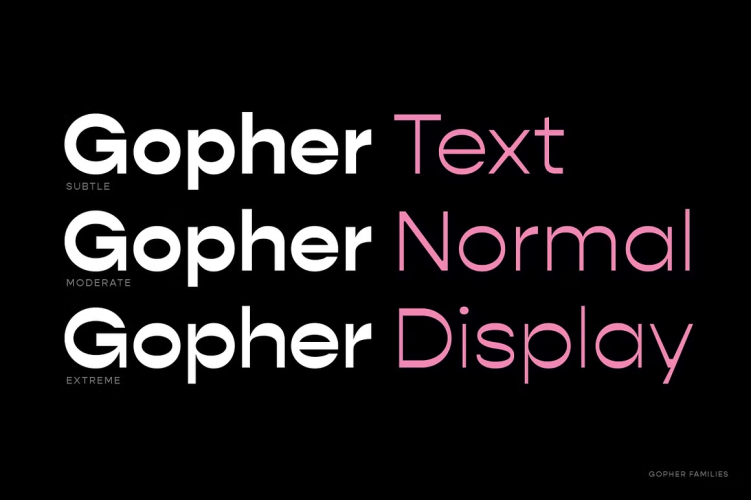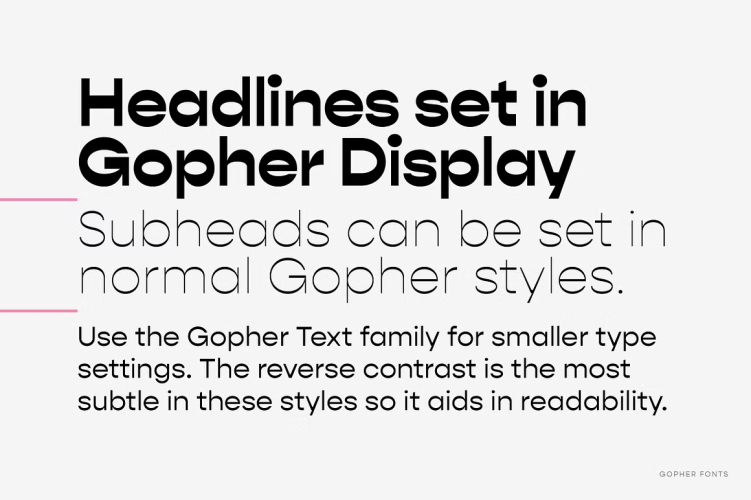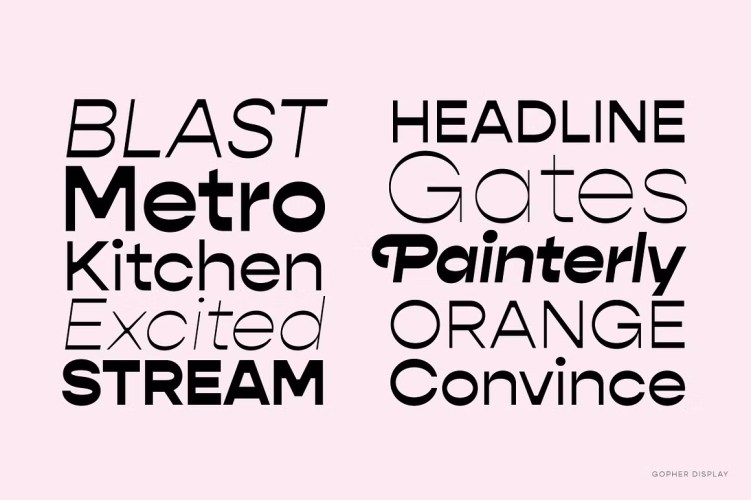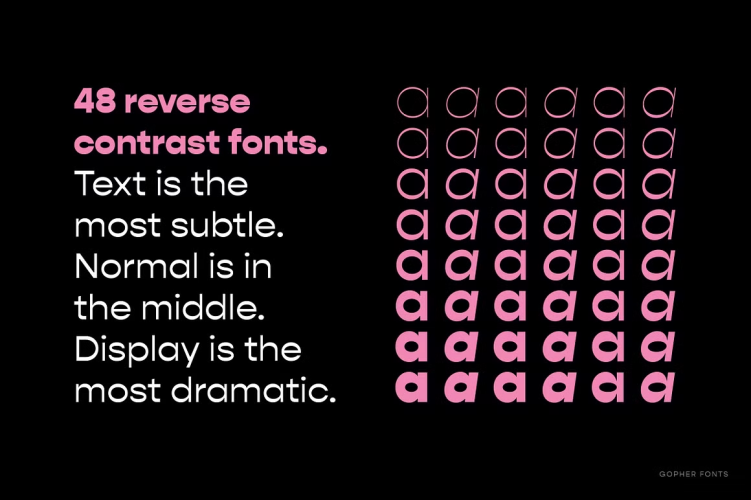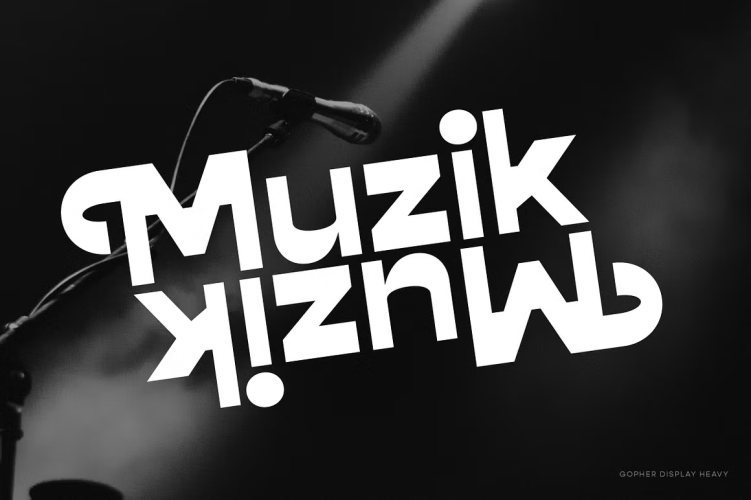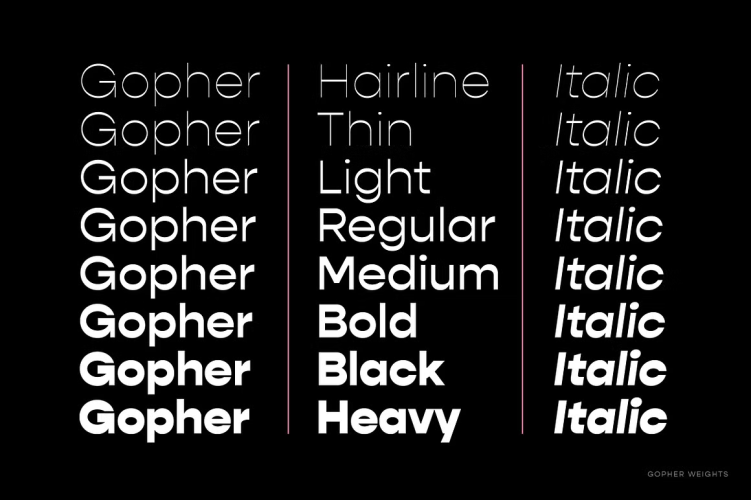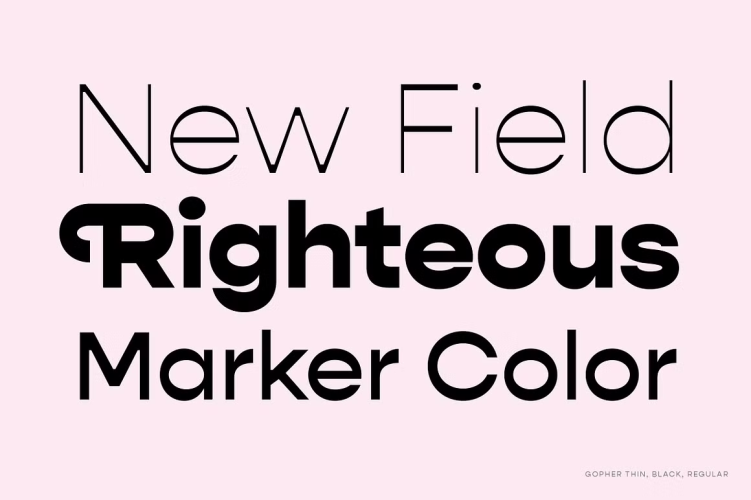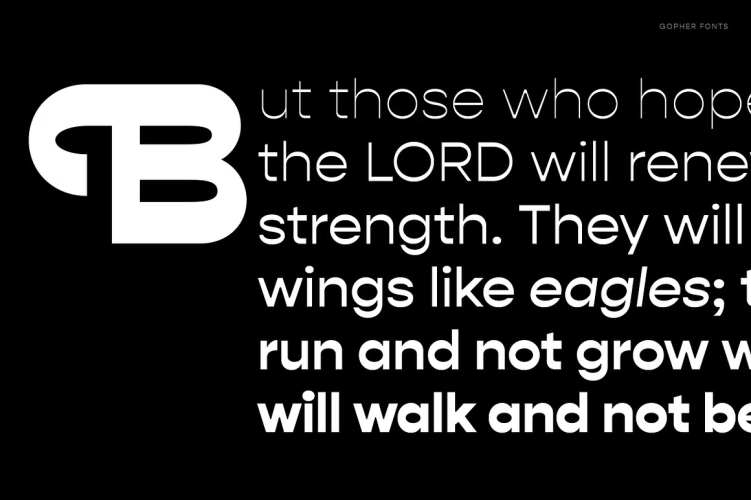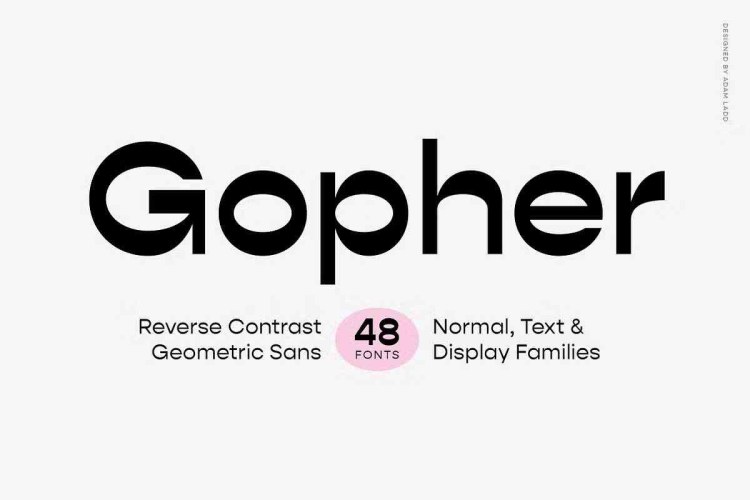
Gopher Font
Gopher is a reverse contrast, geometric sans serif font with Normal Text and Display families. The 48 included fonts in the complete family range from hairline to heavy, with italics. A variation in the amount of contrast is what distinguishes the three separate families while allowing them to still work in harmony together.
In typography, it is common to have vertical contrast, where the sides and stems of letters are thicker, and the horizontal tops and bottoms are thinner. However, Gopher, a geometric sans serif typeface, provides a unique look by reversing this contrast. In Gopher, the sides are thinner, and the tops and bottoms are thicker. This approach was challenging to design, especially for letters with diagonal strokes, like “v” and “k”, but it yielded exciting results.
With over 600 glyphs, this font has extensive Latin language support (100+ Latin languages) for Western, Central, and South Eastern European. Gopher will find its home in a variety of settings for branding, advertising, posters, magazines, packaging, and more.
Where Gopher Font works best
A design system from one file
With several weights, Gopher Font can carry headings, body text and captions, which keeps a product or a brand coherent.
Documentation and knowledge bases
Long technical pages need a family with a clear bold and a comfortable regular; Gopher Font covers both.
Client work with many formats
What kind of work does Gopher Font suit?